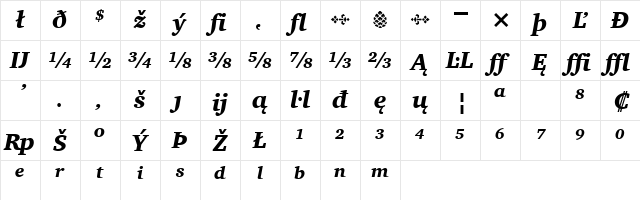
Charter Ext BT Black Italic Extension
Style: Black Italic Extension
Design Context for Charter Ext BT
Charter Ext BT is a composed and adaptable typeface that performs quietly and consistently across a wide range of design contexts. The slanted form adds forward momentum and visual energy.
Pro Tip: Use Charter Ext BT for emphasis, pull quotes, and subheadings where its slanted energy can add rhythm to the layout.